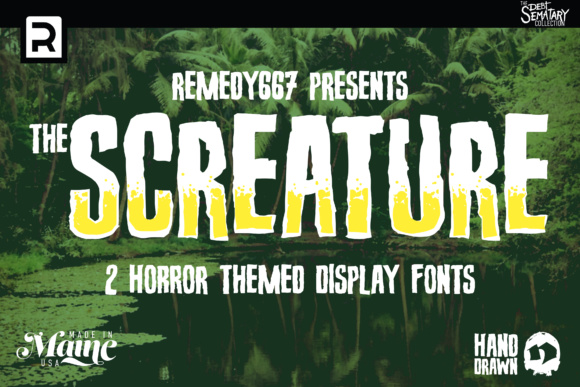
Unleash Screature Font, the ultimate display typeface inspired by iconic Hollywood horror flicks. Enter a realm where imagination meets terror, where the screen shivers with fear, all brought to life by the Screature font.
Handcrafted in the heart of America's horror capital, Maine, Screature is not just a font; it's a gateway to a world where nightmares come alive. Inspired by classic Hollywood films like "Fanged Frankenstein's from the Deep," this font exudes an aura of mystery and intrigue that will leave your audience spellbound.
With Screature, your designs, projects, and products will take on a life of their own. Unleash the dark side of creativity and watch as Screature breathes new life into your work. But be warned, once you unleash the Screature, there's no going back. It's a font that will haunt your designs forever.
So, dare to embrace the dark side of design? Are you ready to let Screature take control of your creative vision? If so, download Screature today and let the horror begin. But remember, you've been warned. Once you unleash the Screature, it becomes the master of your designs, leading them down a path of darkness and intrigue.